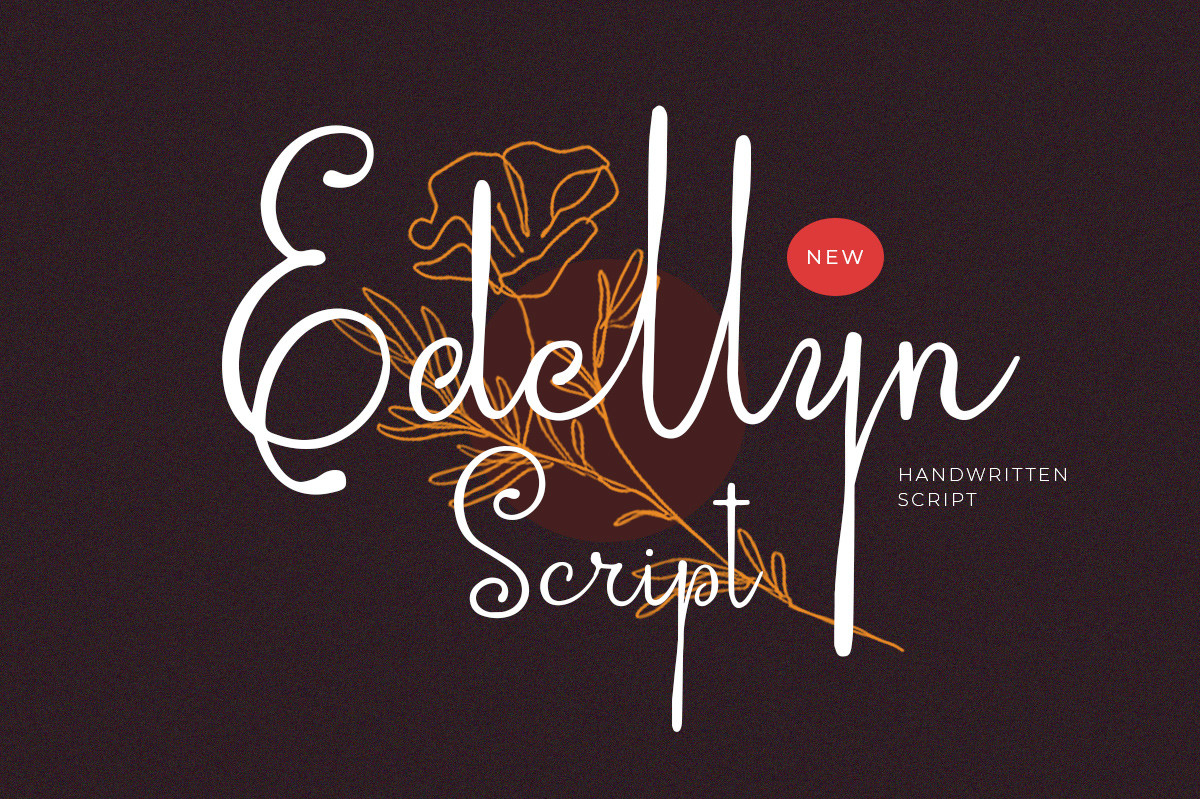
Edellyn Script Font
Perfect for wedding invitations, greeting cards, logos, branding, and elegant packaging.
The Edellyn Script Font excites designers with its graceful, flowing strokes and sophisticated handwritten style that adds a touch of romance and elegance to any project.
The Edellyn Script Font Free Download is a beautifully crafted script typeface that blends classic calligraphy with modern flair. Its smooth curves and refined letterforms make it perfect for feminine branding, luxury products, and heartfelt messages.
One of the key strengths of Edellyn Script Font is its balance of style and readability—it maintains clarity even at smaller sizes while delivering a warm, elegant feel.
In branding, Edellyn Script communicates charm, sophistication, and authenticity. It pairs wonderfully with soft color palettes, floral illustrations, and minimalist layouts, making it ideal for wedding planners, beauty brands, and boutique stores.
For digital projects, this font shines in social media graphics, blog headers, and digital invitations, providing a polished and inviting aesthetic.